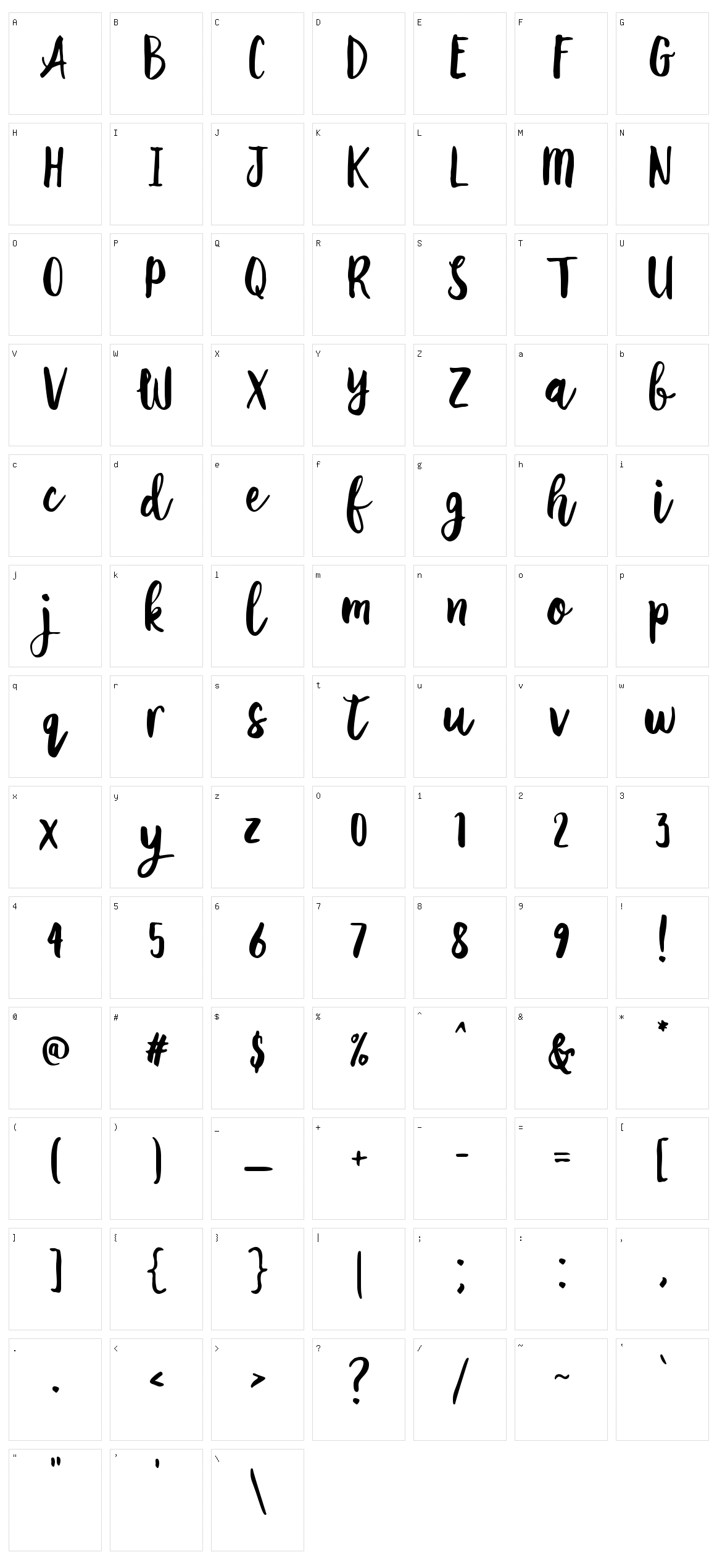
The free font Let's Go Green is carefully designed by Letteratom, showcasing a thoughtful balance of creativity and usability and falls under the Script font style. When you download the ZIP file, it contains only 29.08 KB of font files, making it lightweight and quick to download. Please review the license details below to understand permitted usage and distribution rights. If license information is not available, we recommend using this font for personal projects only or contacting the author directly for commercial usage permissions.